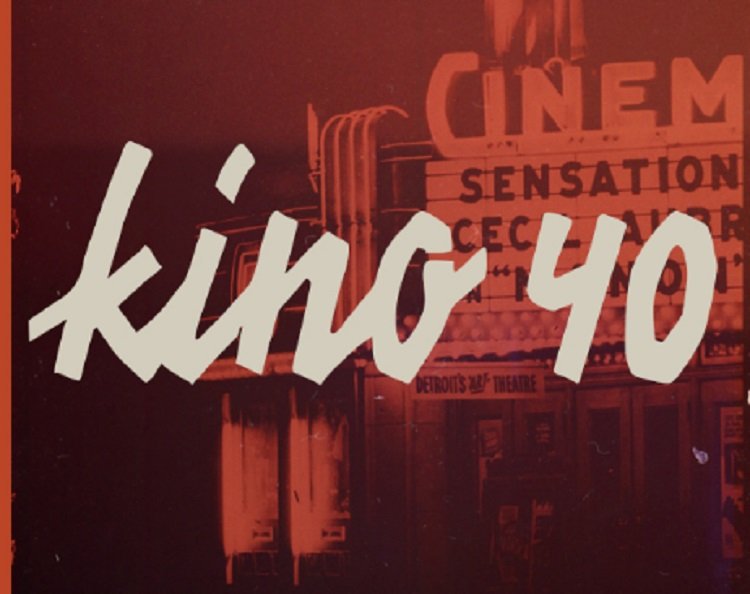
KINO 40 Font
Introducing to you a style entirely new handwriting. KINO 40 is designed and shared by les83machines.  KINO 40 Font inspired in the old cinema handwrite style Exclusively on Behance Network. This is Modern Vintage Calligraphy style, Suitable for design, element design, wedding, event, t-shirt, logo, badges, sticker, and awesome work, etc…